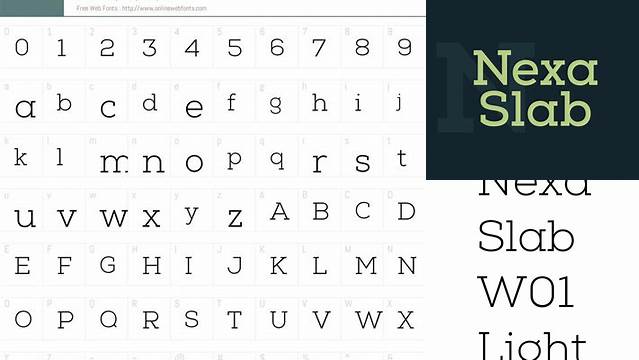
Looking for a versatile and stylish font? Nexa Slab Light might be just what you need, guys! This article is your one-stop shop for everything about the Nexa Slab Light font, including how to snag it for free, its features, and how to use it effectively. Let's dive in and explore the world of this fantastic typeface!
Understanding Nexa Slab Light: A Brief Overview
Nexa Slab Light, part of the larger Nexa family, is a geometric slab serif font designed by Svetoslav Simov in 2012. Known for its clean lines, modern aesthetic, and excellent readability, Nexa Slab Light has quickly become a favorite among designers, marketers, and anyone looking to add a touch of elegance to their projects. The 'Light' in its name refers to its weight, which is perfect for creating a sense of airiness and sophistication. The font's design focuses on simplicity and clarity, making it ideal for both headlines and body text. Its slab serif style provides a unique character that differs from traditional sans-serif fonts. You'll find that Nexa Slab Light works wonders across various applications, from website design and branding to print materials and social media graphics. The font's versatility is one of its strongest assets, making it suitable for a wide range of creative endeavors. It's the kind of font that can elevate your design, making it look both modern and professional. The font's popularity has grown steadily since its release, solidifying its place as a go-to choice for designers worldwide. So, if you're looking to make a statement with your typography, Nexa Slab Light is definitely worth considering. It's a typeface that balances style and functionality seamlessly, ensuring that your message is not only visually appealing but also easy to understand. Plus, with its various weights and styles, you have plenty of options to customize the look and feel of your project.